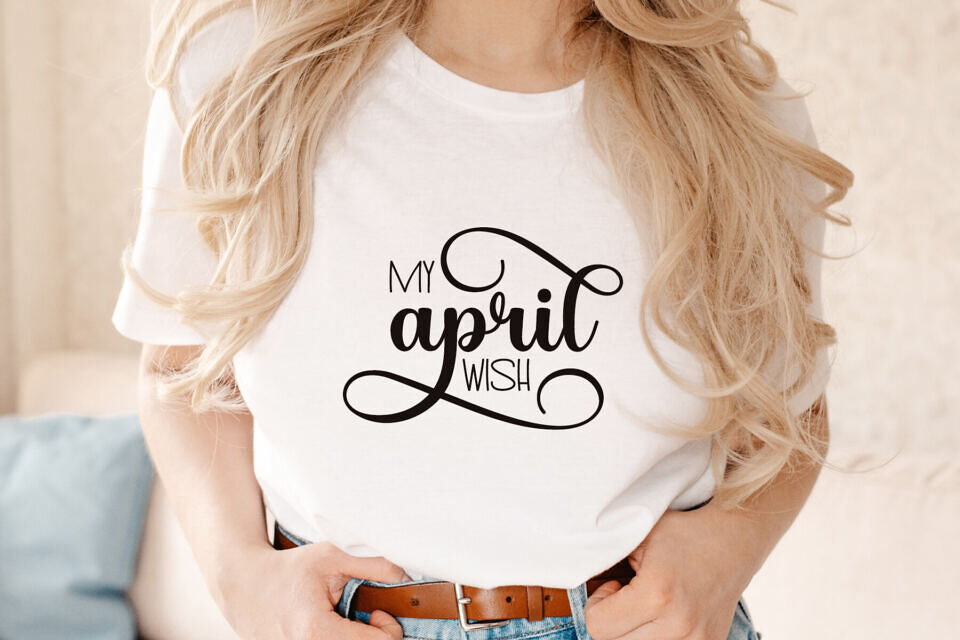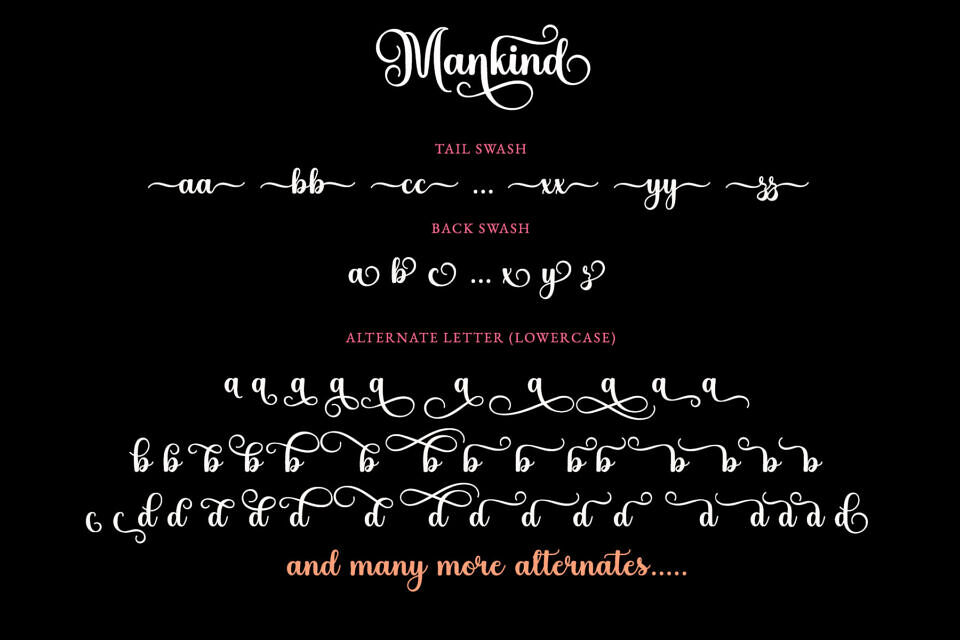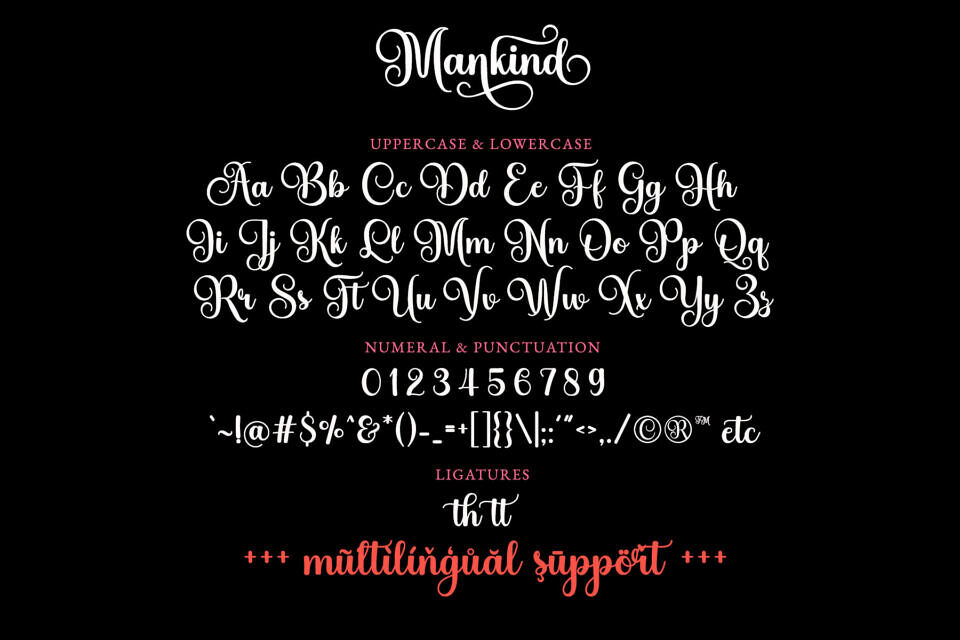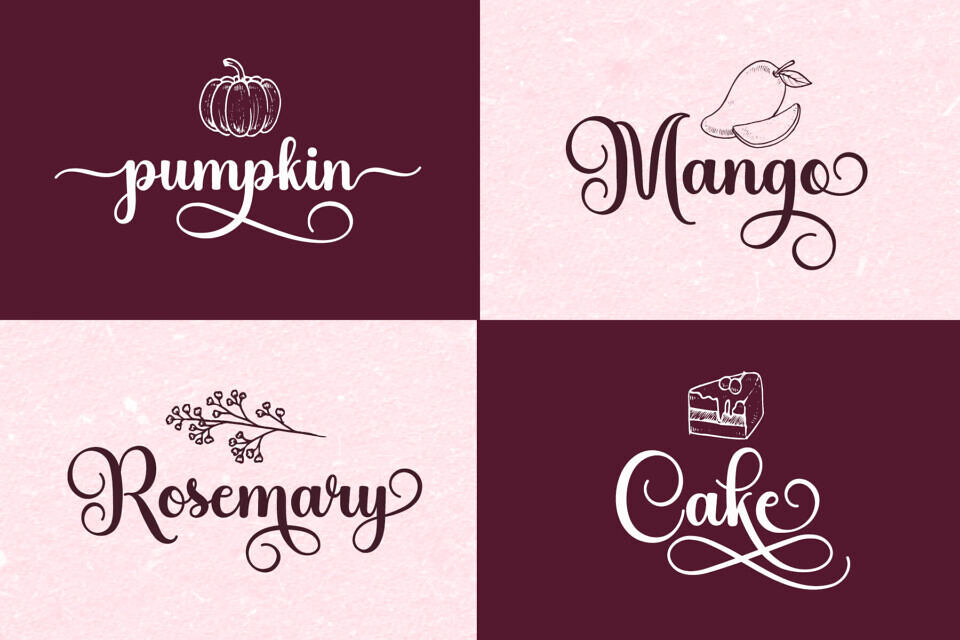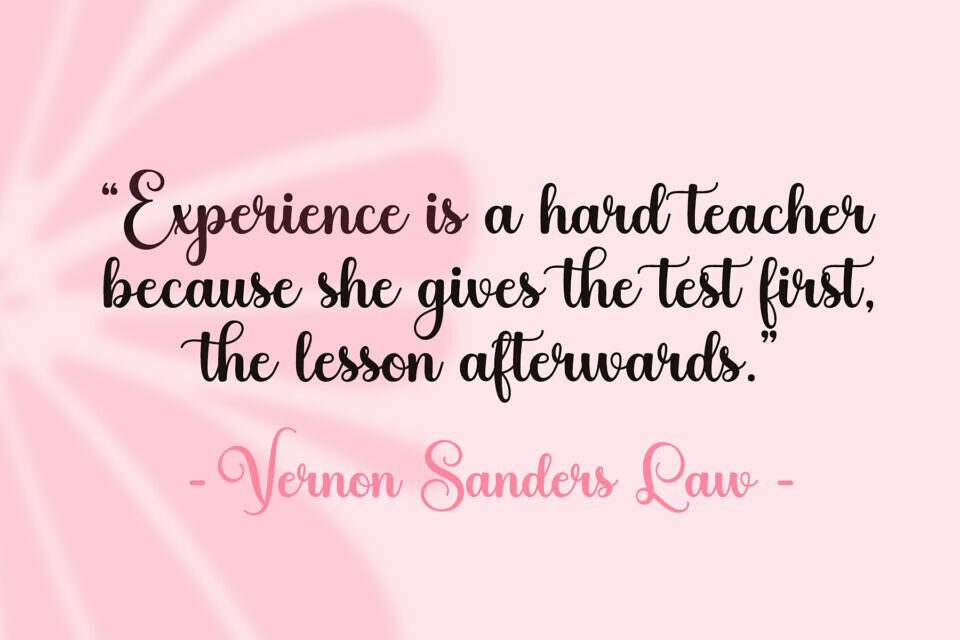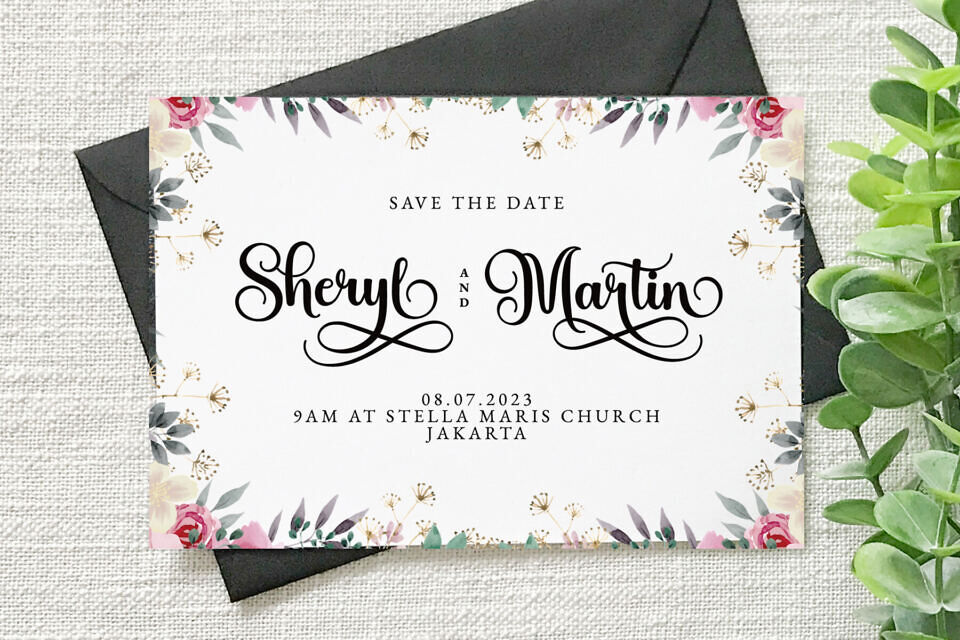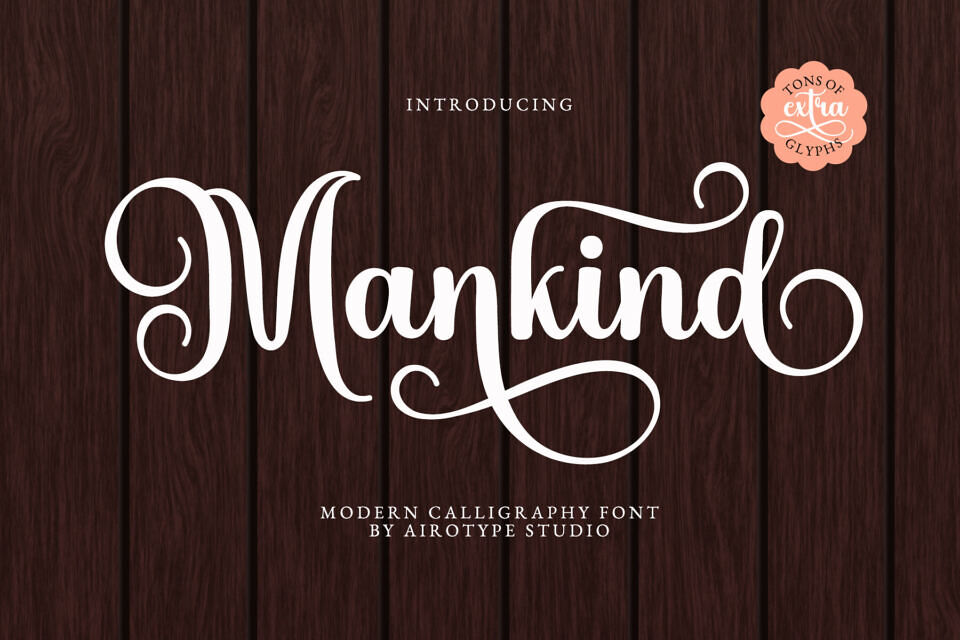
Mankind Font
Mankind is a modern and elegant script font. It is girly, fancy, and luxurious. Add it to your creative projects and you will be astounded by the generated outcome!